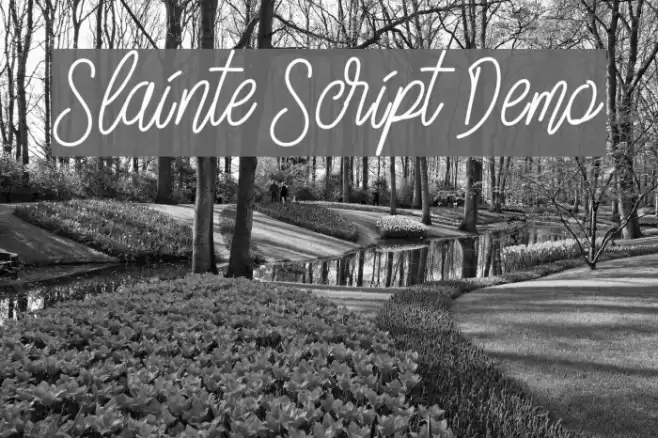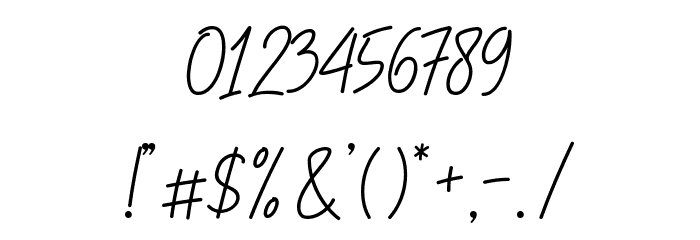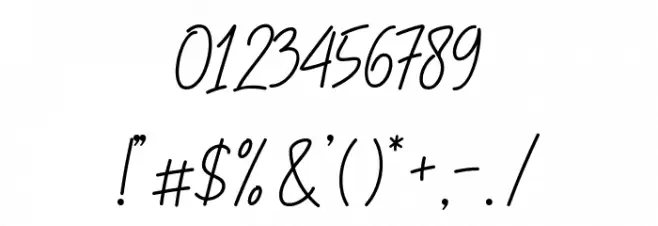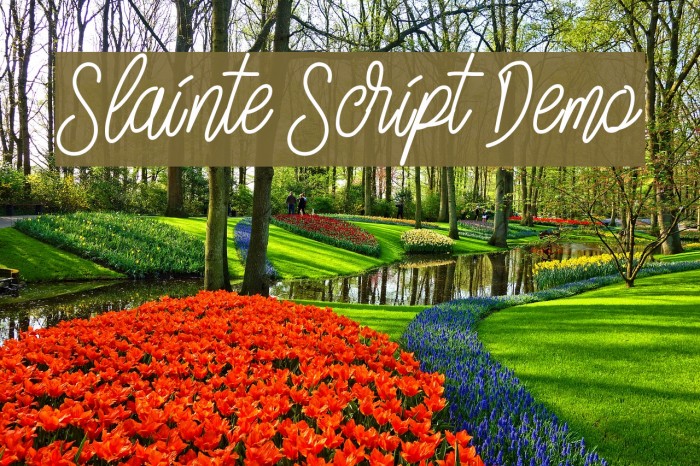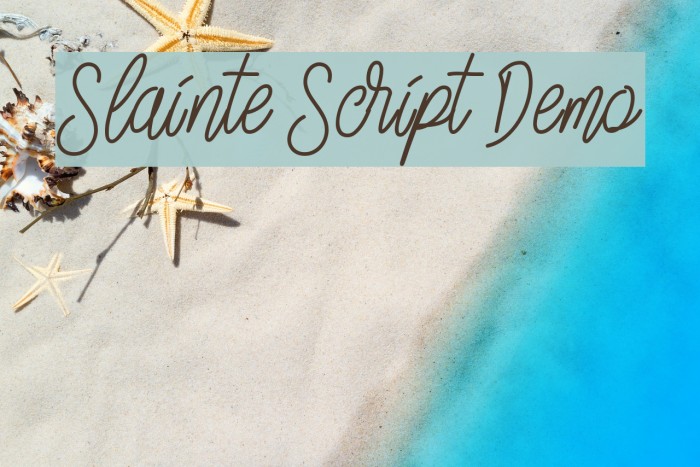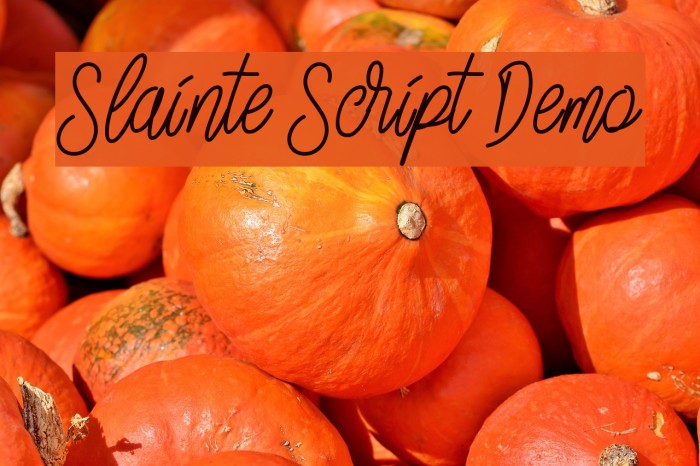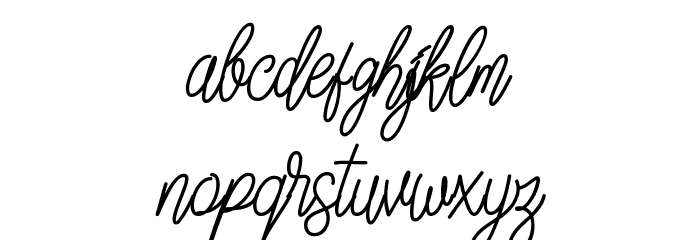
Slainte Script Demo Font
Slainte Script Demo Description
This script font exudes a casual elegance with its flowing, handwritten style. The letters are connected in a smooth, cursive manner, giving it a personal and artistic touch. The uppercase letters are slightly more formal, while the lowercase letters maintain a relaxed, approachable feel. The numbers and special characters are consistent with the overall style, ensuring versatility across various uses. The strokes are moderately thick, providing good readability without sacrificing the font's delicate appearance. This font is perfect for projects that require a personal, yet stylish touch.
A casual, elegant script font with smooth, connected letters and moderate stroke thickness from Uncategorized fonts.
- Proposed Projects: Ideal for wedding invitations, greeting cards, personal branding, and social media graphics.
- Use Case: Logos, Invitations, Personal Branding